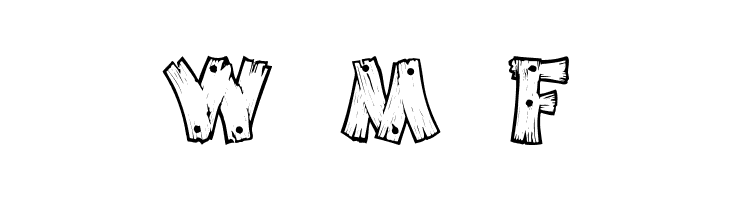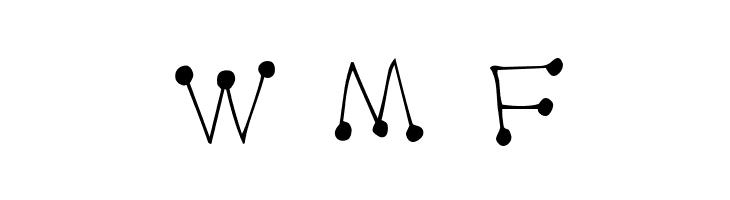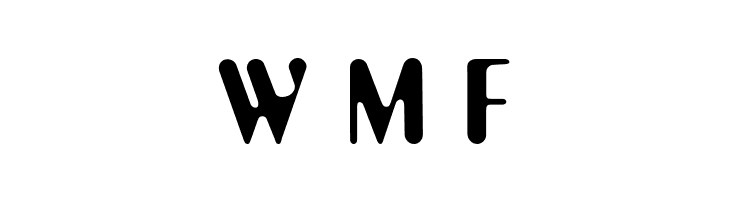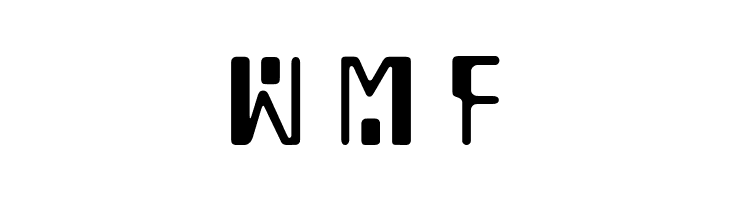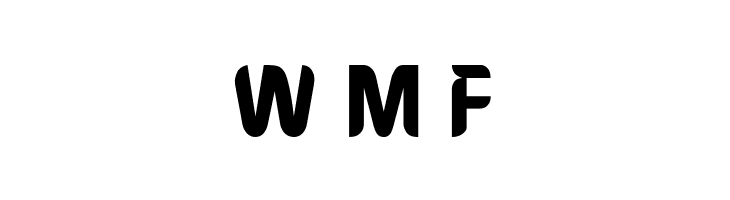
A playful, hand-drawn outline font with a bold and friendly appearance.
A playful, rounded font with a whimsical and friendly vibe.
A playful, heart-accented font with a whimsical and friendly style.
A bold, rounded font with a playful and friendly style.
A modern, clean, and slightly condensed font with bold uppercase and friendly lowercase letters.
A bold, playful script font with a friendly and inviting style.
A playful, wood-textured font with a rustic, handcrafted appearance.
A bold, playful font with a modern and friendly design.
A playful handwritten font with a casual and friendly style.
A playful, handwritten-style font with a casual and friendly appearance.
A bold, playful handwritten font with a friendly, rounded style.
A bold, playful handwritten font with a whimsical and friendly style.
A playful handwritten font with a casual and friendly style.
A playful, handwritten font with whimsical doodles and a friendly style.
A casual, handwritten font with rounded, smooth letterforms and a friendly appearance.
A bold, rounded font with a modern and friendly style.